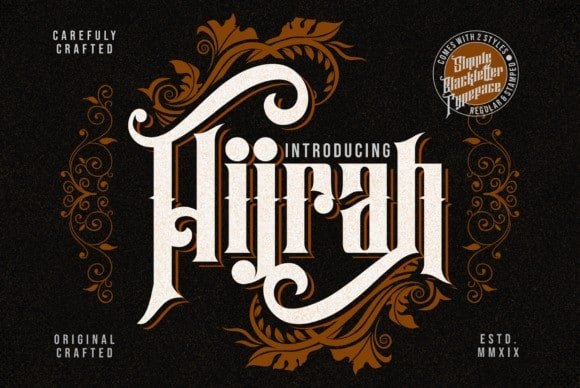
Hijrah Display Font
Thanks for checking out Hijrah Display Font is Blockletter Decorative Serif Display Font. This typeface is designed and shared by Omotu. It is an old-school blackletter font with a stunning look & feel. Use it for any design project that requires a personalized appearance!
Hijrah is handcrafted vintage display font. It can be used in different purposes: lettering and logotype, labels, t-shirts, product packaging, invitations, advertising, and any classic / vintage typography design projects.